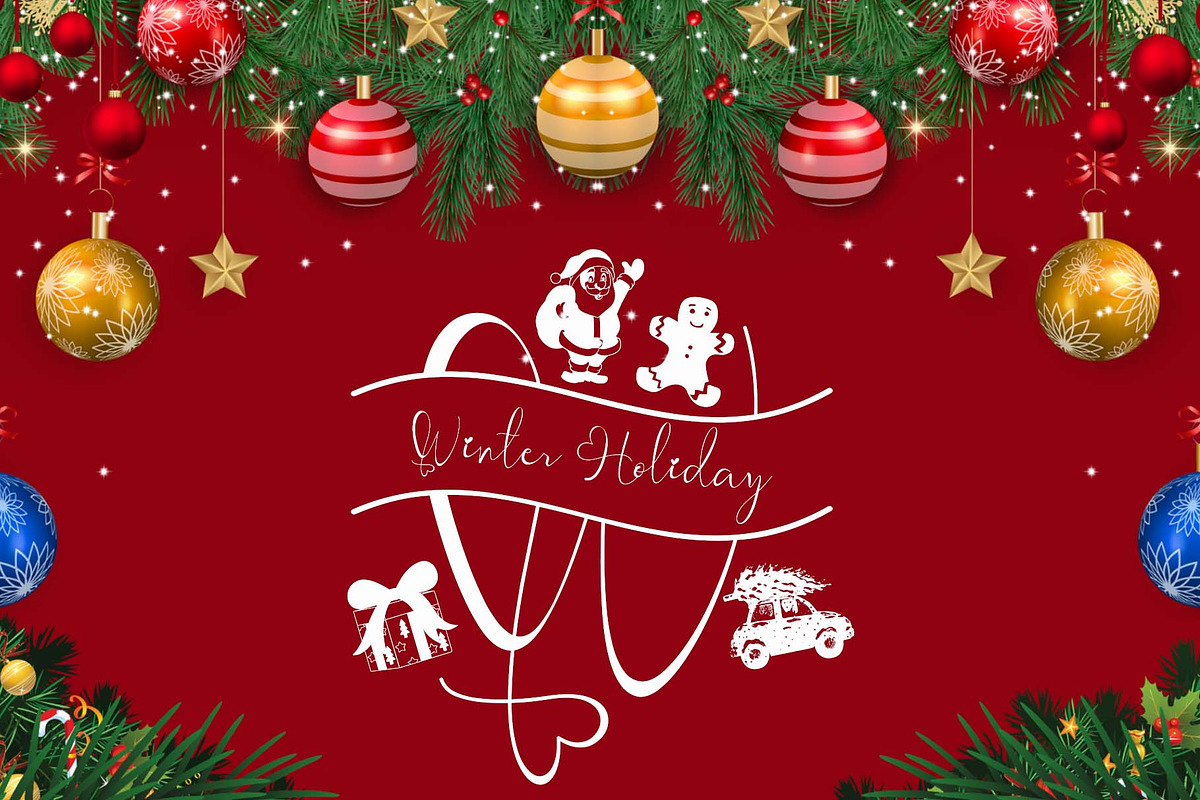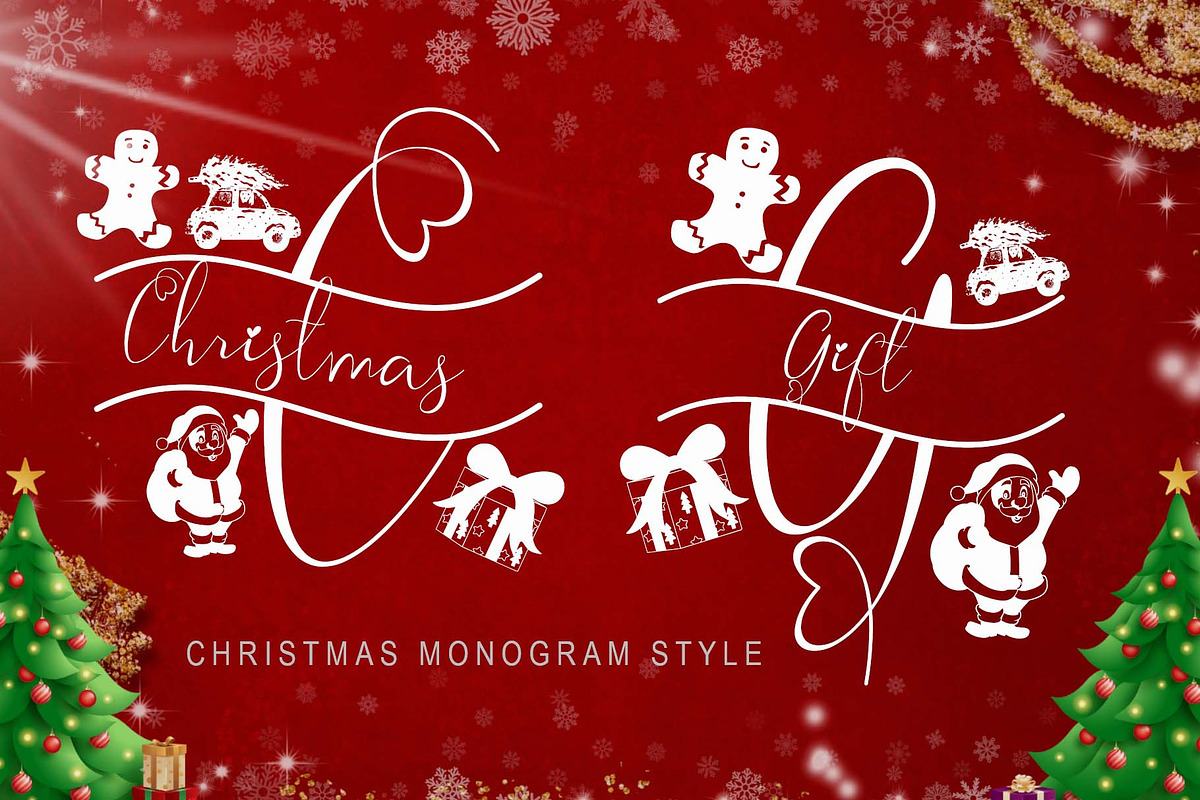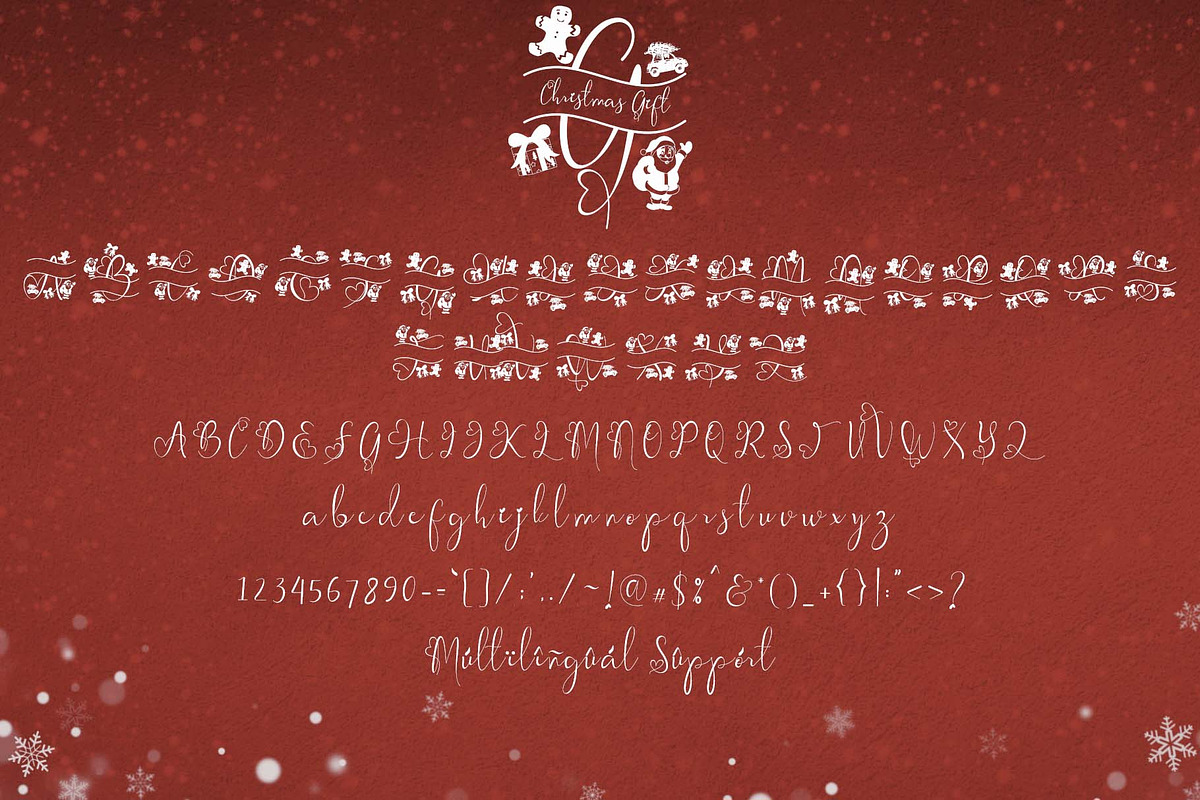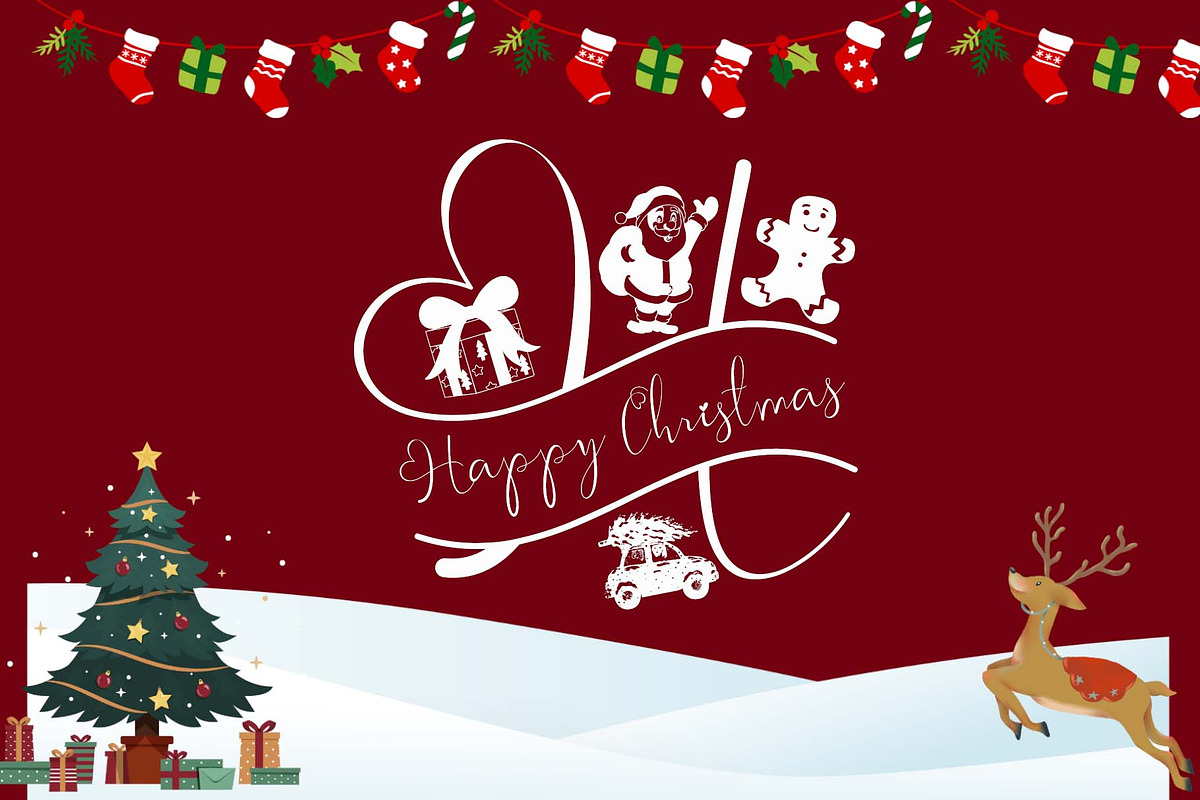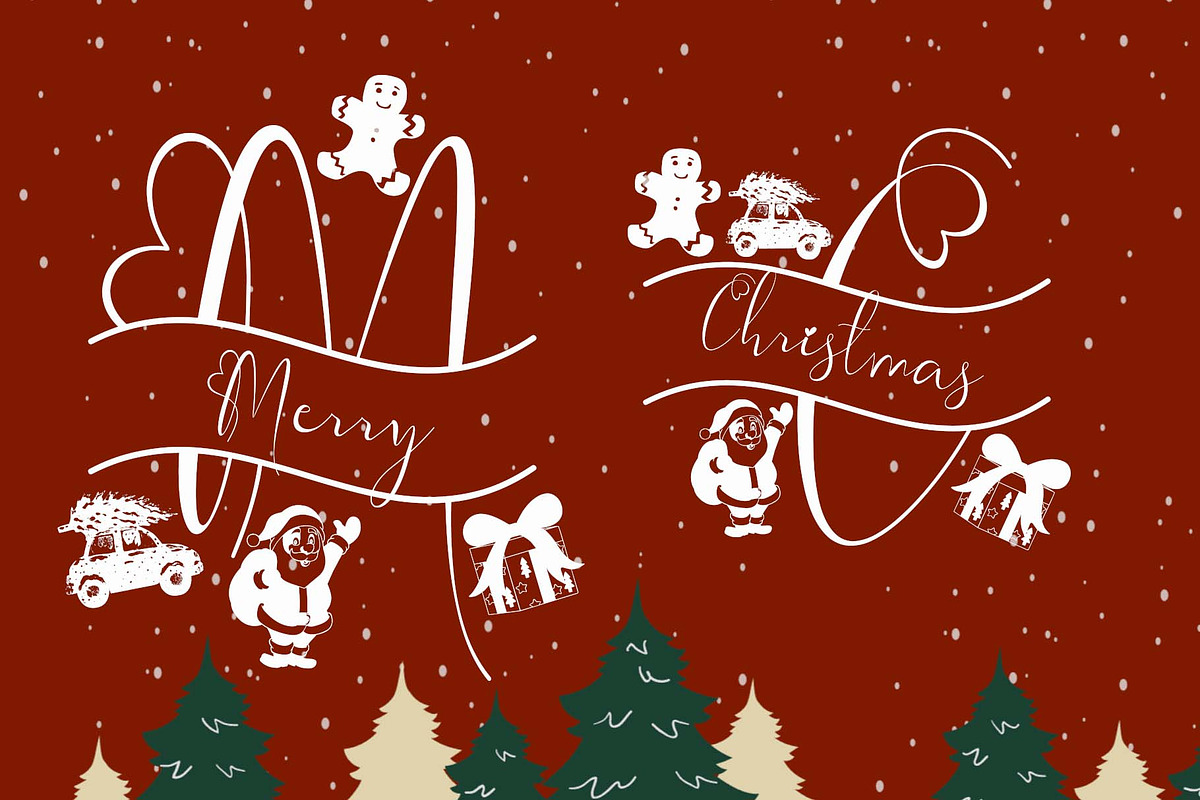
Christmas Gift Monogram
"Christmas Gift Monogram" is a beautiful and unique monogram font. This font is equipped with uppercase letters, lowercase letters, monograms, numerals, punctuation, and multilingual support. Very suitable for Christmas, winter, Valentine's, holiday, spring, wedding, logos, posters, branding, engagement, and others.